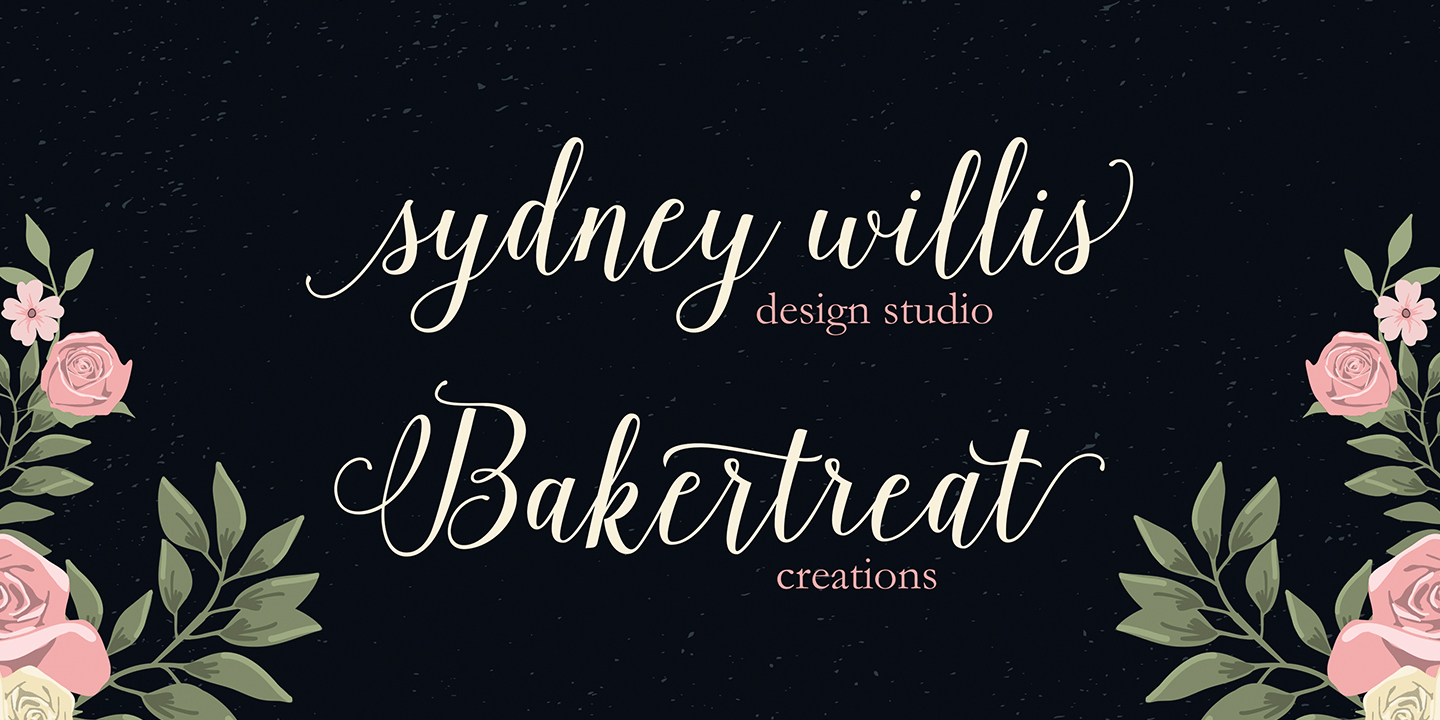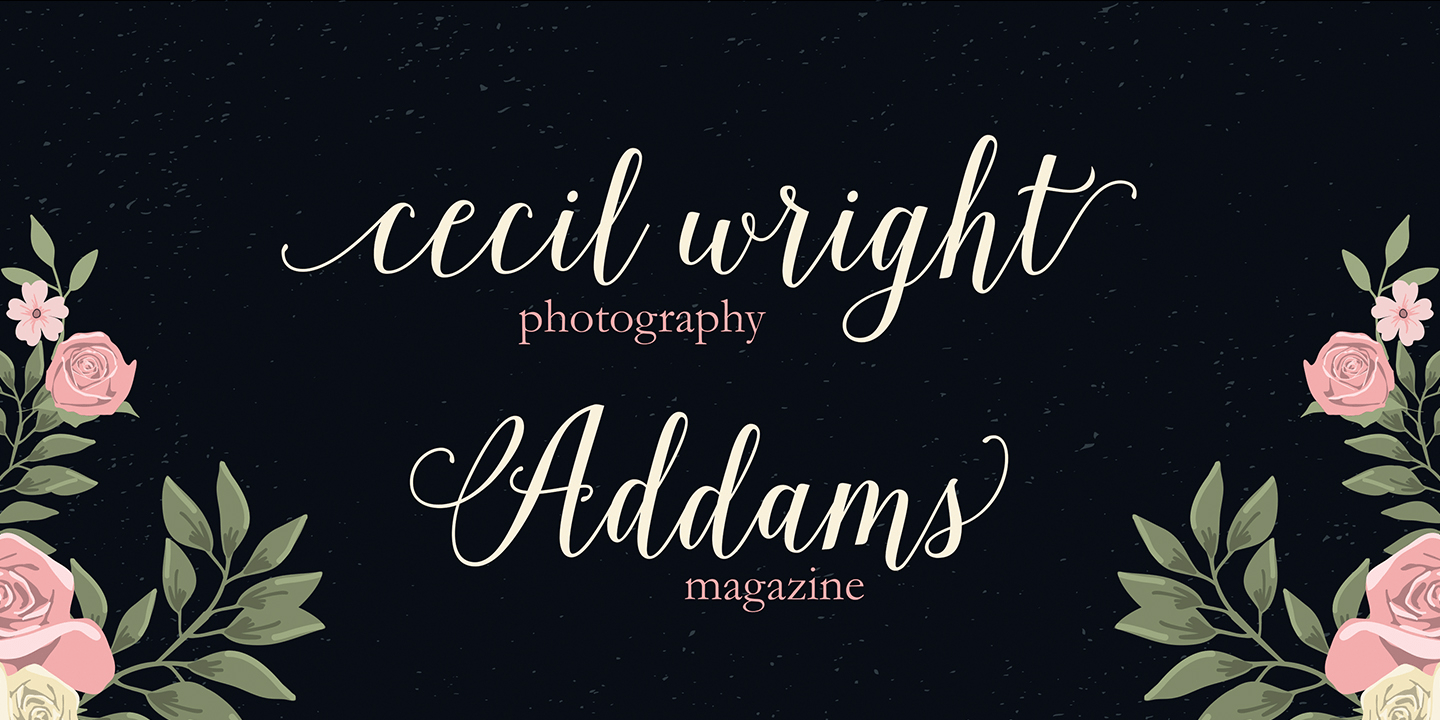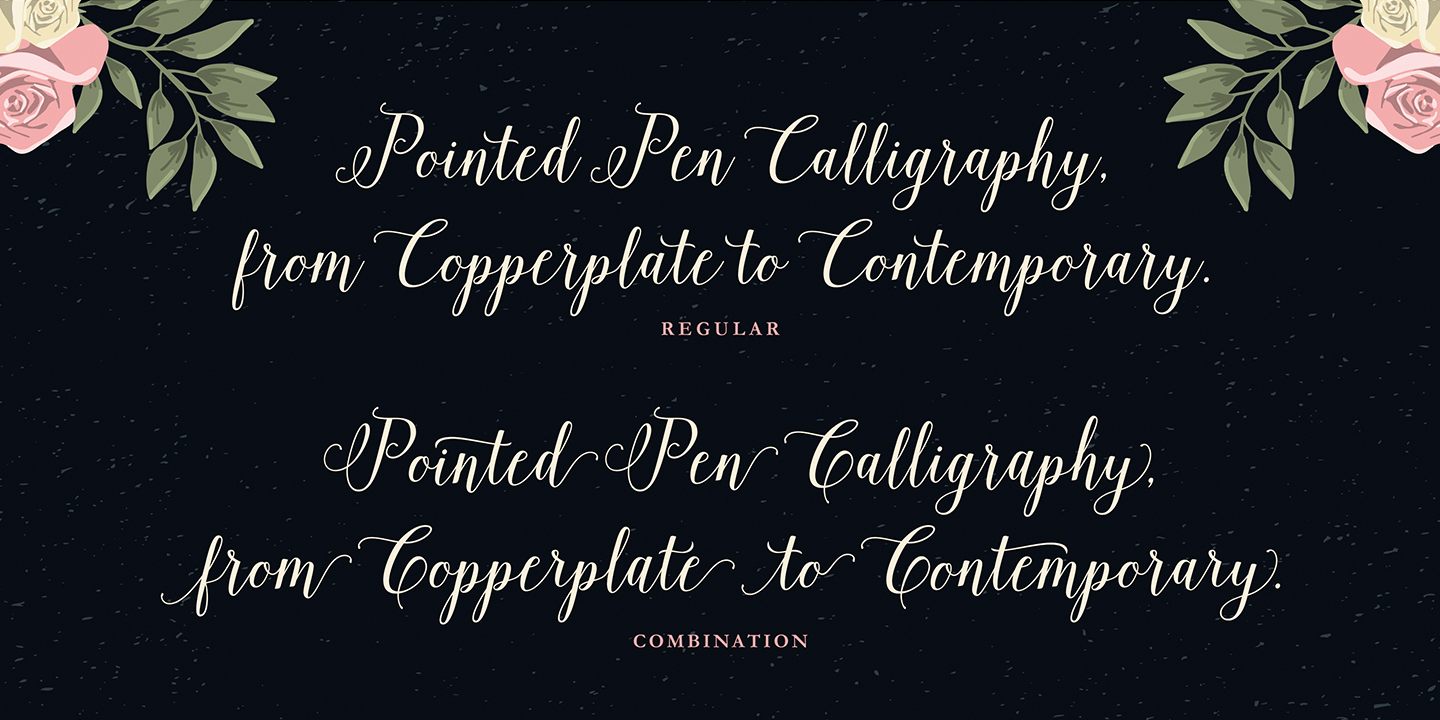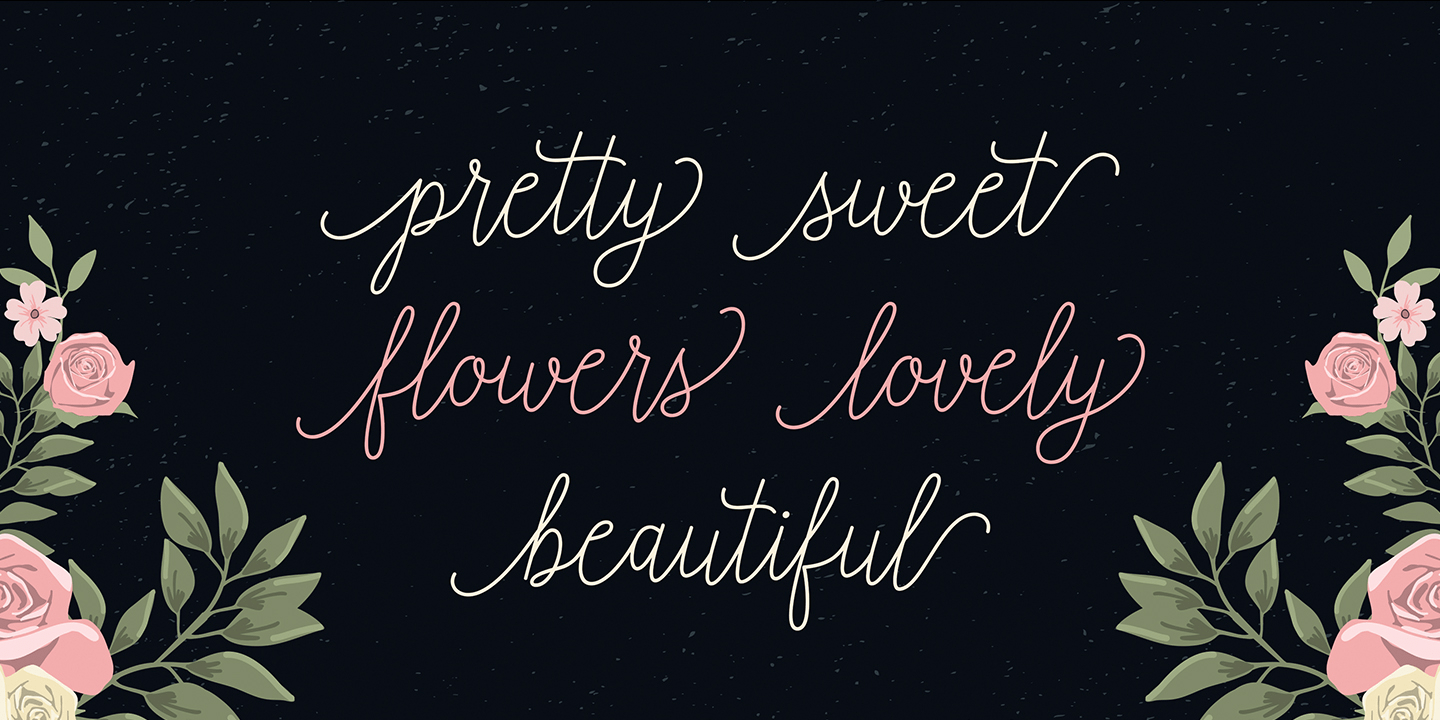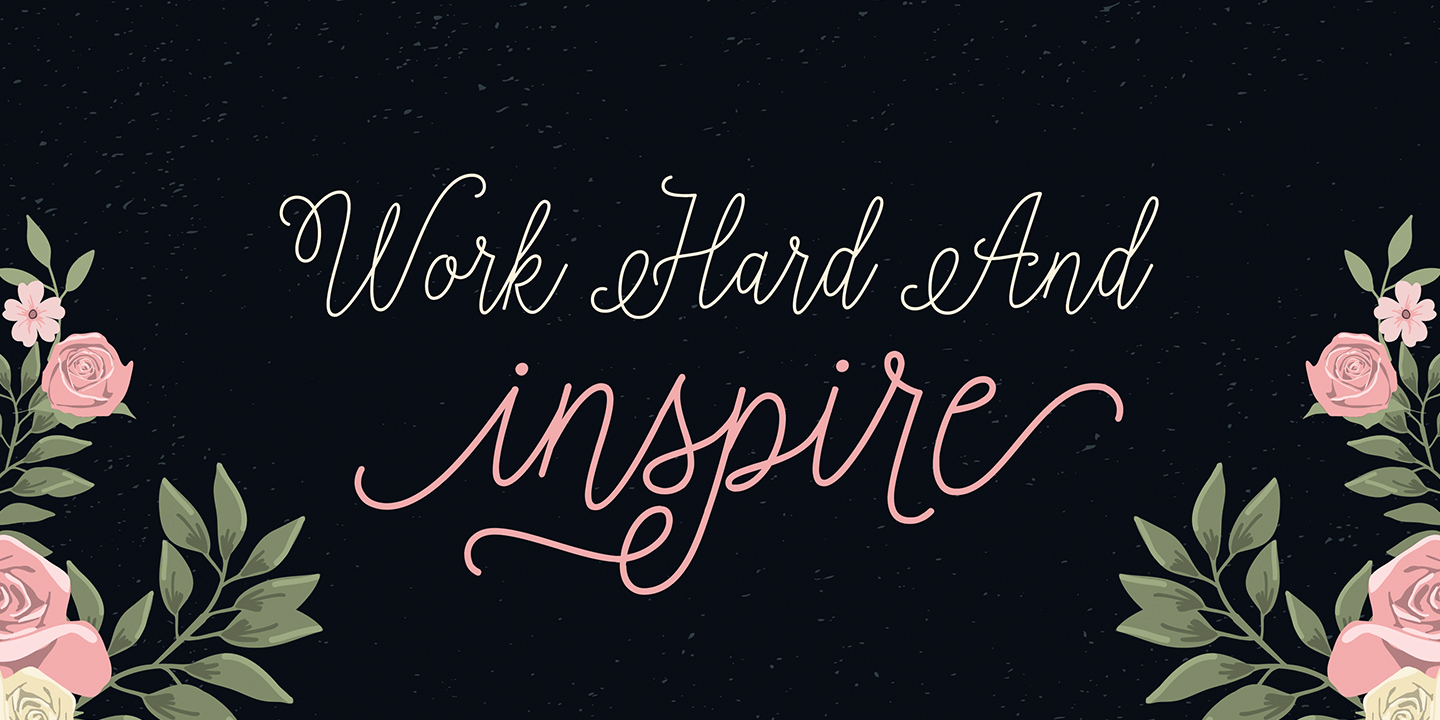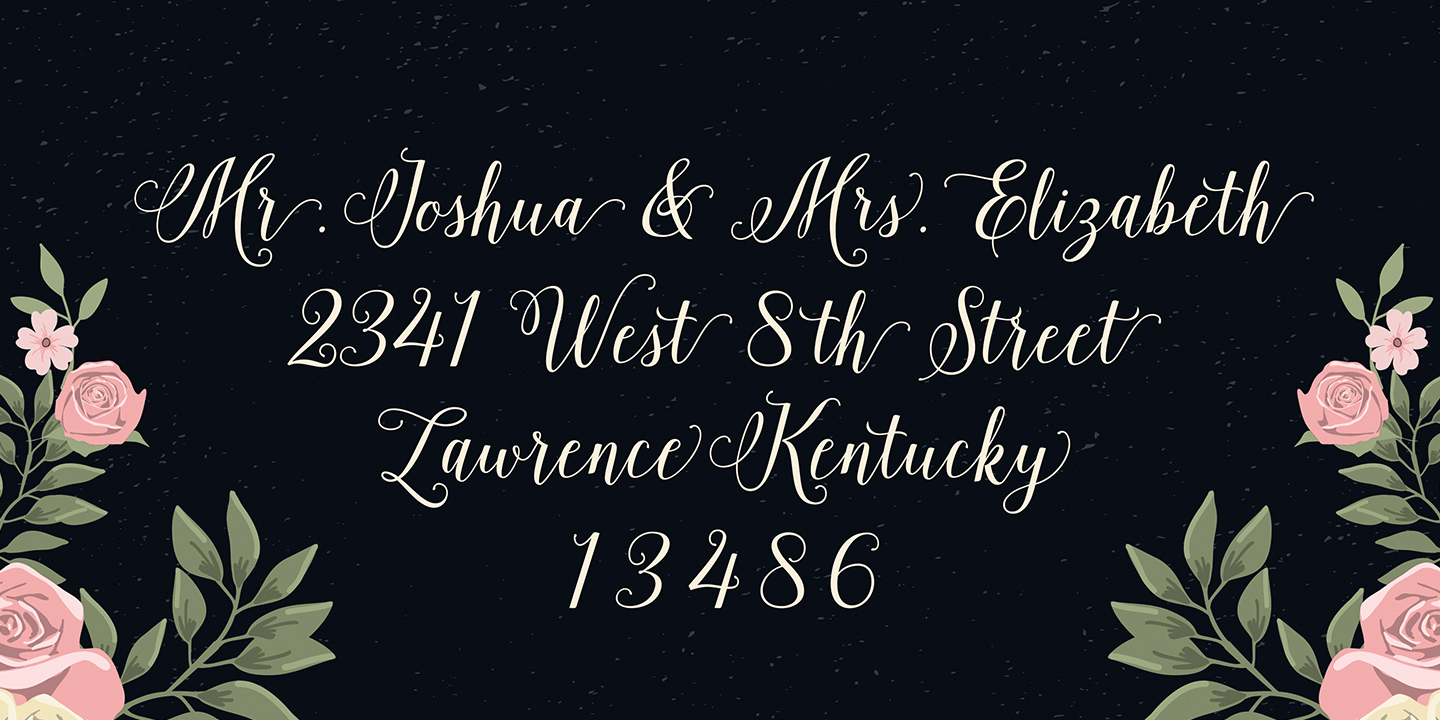
Isabella Script
About Isabella Script
Isabella Script is handwritten stylish copperplate calligraphy font. From copperplate to contemporary with a dancing baseline, and classic and elegant touch, it can be used for various purposes such as headings, signature, logos, wedding invitation, t-shirt,…